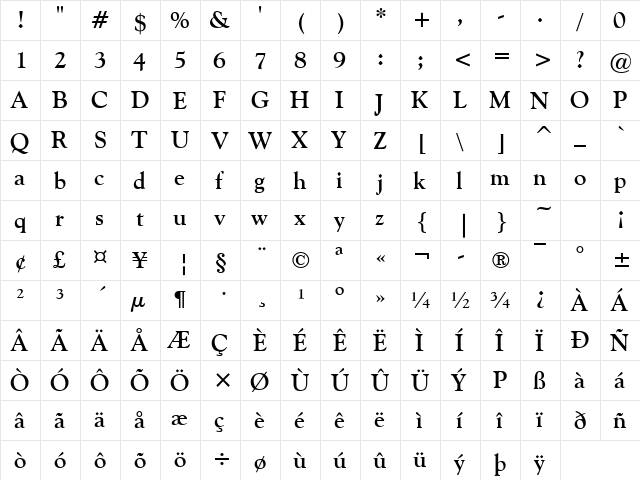
Cordial Bold
Design Context for Cordial Typeface
Cordial is a composed and adaptable typeface that performs quietly and consistently across a wide range of design contexts. The heavy weight commands attention and anchors typographic hierarchies.